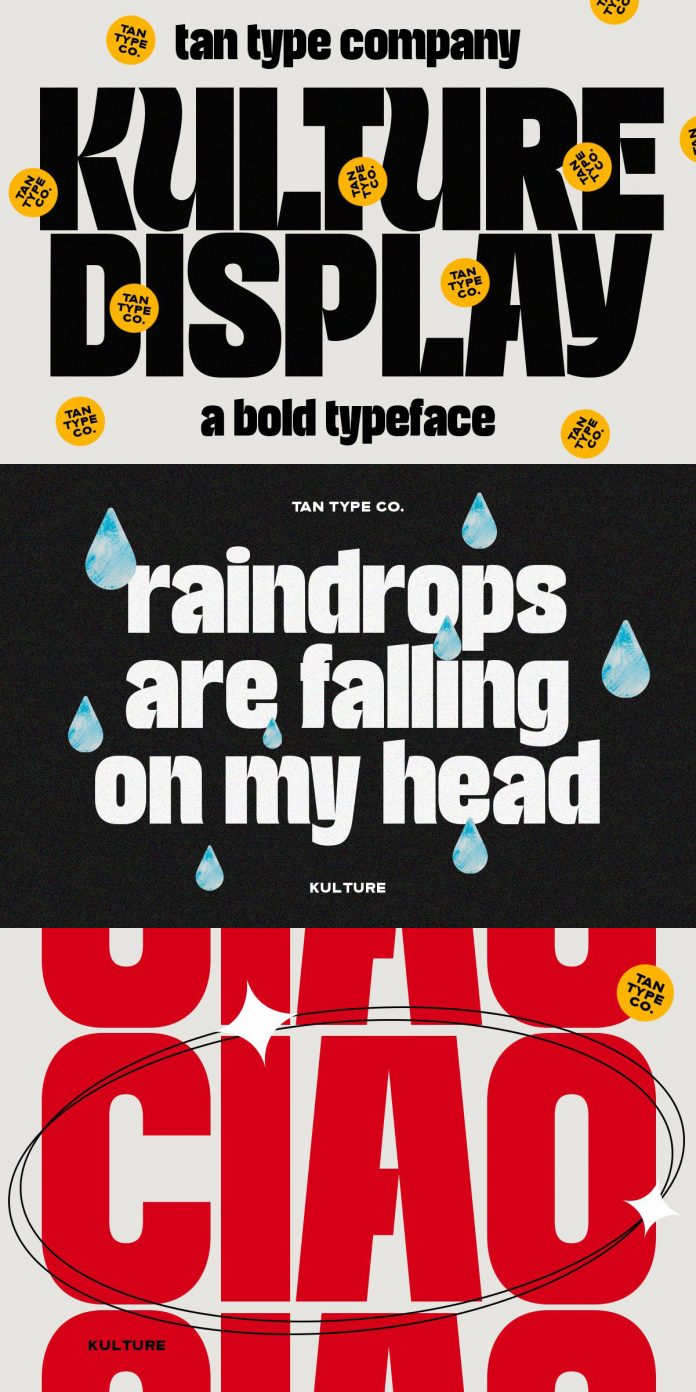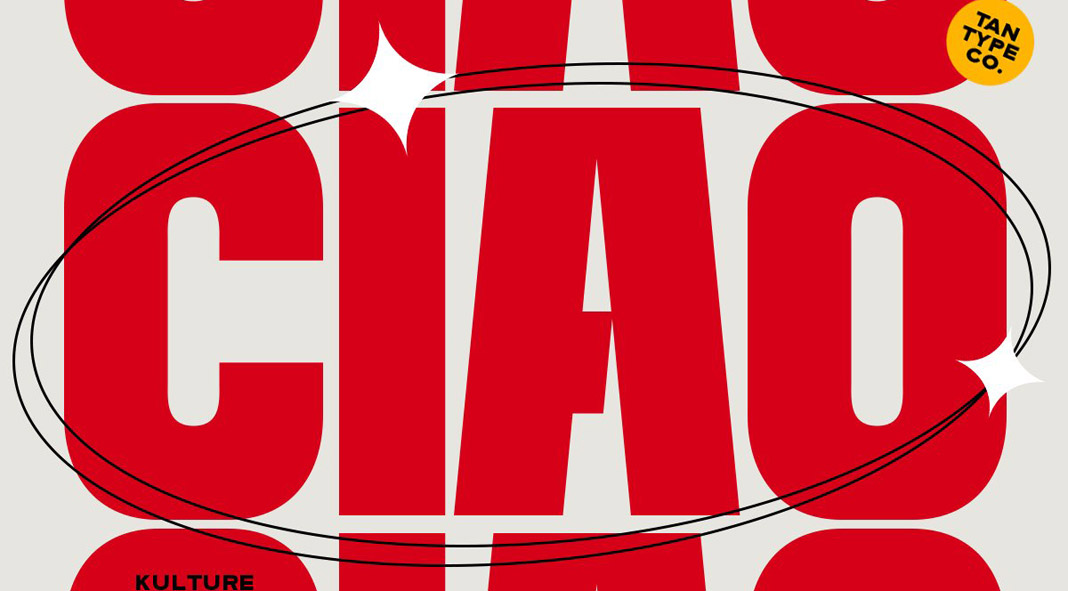
TAN KULTURE, a bold display font from foundry TanType.
The TAN KULTURE display font is characterized by simple but unique shapes. Its tight kerning makes it a great option for retro designs. You can use it for a wide range of projects including print and web. Just click on the following link to learn more about this unique typeface and all its typographic features.